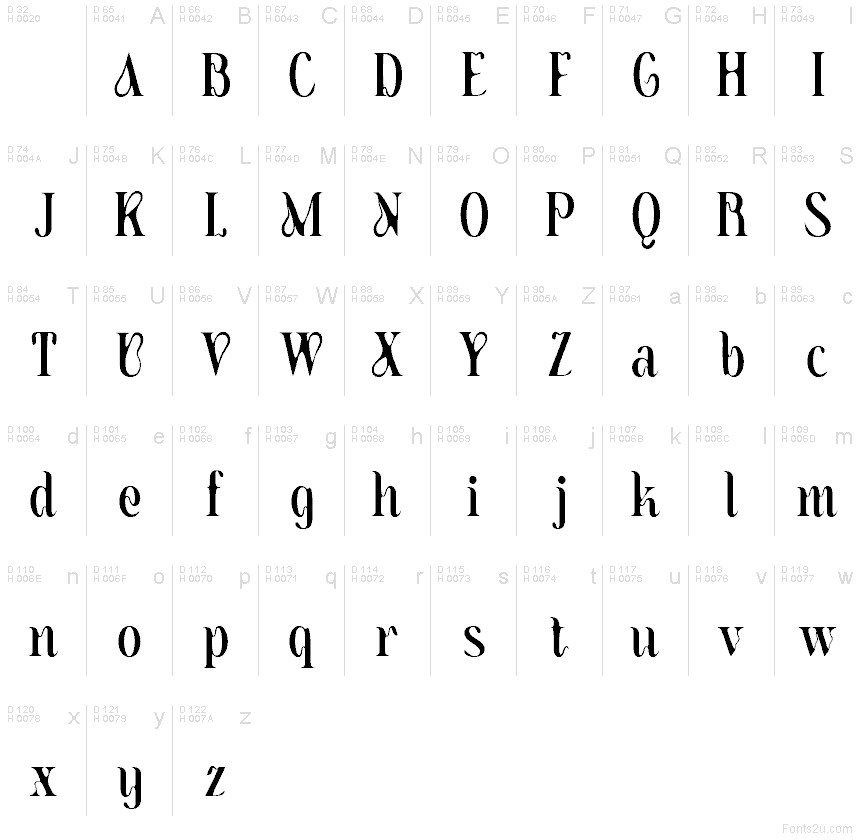
CSBlairDrawn-Regular Demo
CS Blair Drawn font by Craft Supply Co. adopts a classic style inspired by vintage design and old-fashioned advertising. This serif free font combines elegance with subtle beauty in its clean lines and gentle corner curves. Whether it’s logos, packaging designs, or even film posters, this typeface is sure to steal the show with its refined charm.